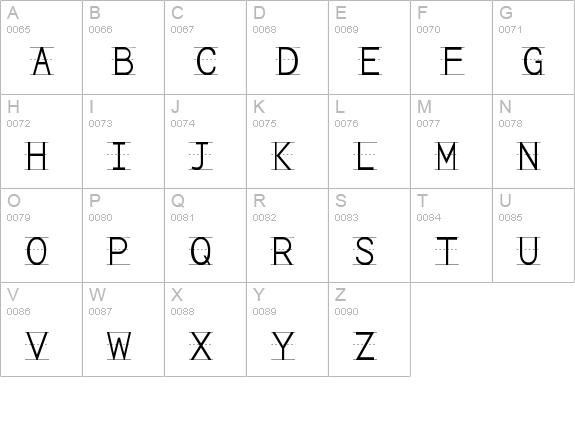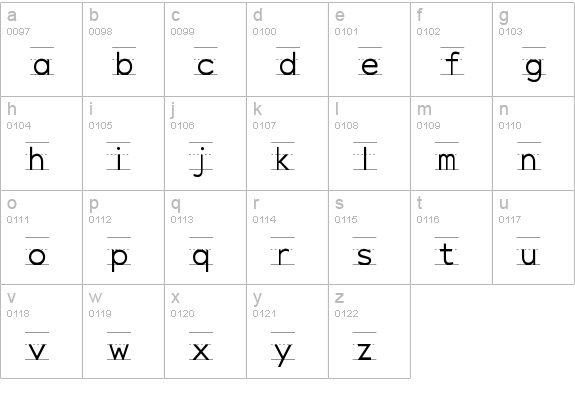
Penmanship Print Font Details
Penmanship Print is a timeless font that exudes elegance and sophistication. With its clean and flowing strokes, this font captures the essence of beautiful penmanship. Each letter is meticulously crafted, showcasing the artistry and attention to detail that went into its creation. Penmanship Print is perfect for adding a touch of refinement to any project. Whether you're designing wedding invitations, creating a logo, or crafting a stunning headline, this font will elevate your work to new heights. Its classic yet modern style makes it versatile and suitable for a wide range of applications. What sets Penmanship Print apart is not only its beauty but also its accessibility. It is available for free download at FontsMarket.com, allowing everyone to enjoy its exquisite charm. Now, you can effortlessly add a touch of elegance to your designs without breaking the bank. Whether you're a professional designer or a hobbyist, Penmanship Print is a must-have font in your collection. Its timeless appeal and ease of use make it a reliable choice for any project. So, why wait? Head over to FontsMarket.com and download Penmanship Print for free today. Let your creativity soar with this stunning font that is sure to leave a lasting impression.